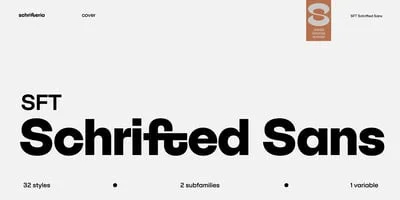
SFT Schrifted Sans Font
SFT Schrifted Sans Font is ideal for German engineering branding, European industrial design, technical documentation, precision manufacturing communications, automotive industry materials, mechanical engineering presentations, Swiss-style design projects, architectural blueprints, scientific research publications, and professional technical interfaces. This systematic typeface creates authoritative technical atmosphere in both engineering print and digital industrial applications.
What makes SFT Schrifted Sans Font exciting is its precise Germanic design philosophy that perfectly embodies engineering excellence and technical reliability. The font features mathematically refined letterforms with systematic proportions and industrial precision that reflect German design traditions and technical sophistication. Its authoritative design establishes an atmosphere of engineering expertise and manufacturing quality that resonates with technical professionals and industrial audiences.
SFT Schrifted Sans Font family includes technical variations: Light, Regular, Medium, Bold, and Condensed versions, each with engineering precision and systematic character sets. Each variant maintains the font's technical integrity while providing designers with systematic options for creating precise typography systems and industrial communication materials.
This distinguished technical typeface brings authentic engineering credibility to projects requiring industrial presentation. Whether you're designing manufacturing branding, technical documentation, or engineering marketing materials, SFT Schrifted Sans Font delivers exceptional precision and technical sophistication. The font's systematic proportions and engineering details ensure optimal functionality across various industrial applications.